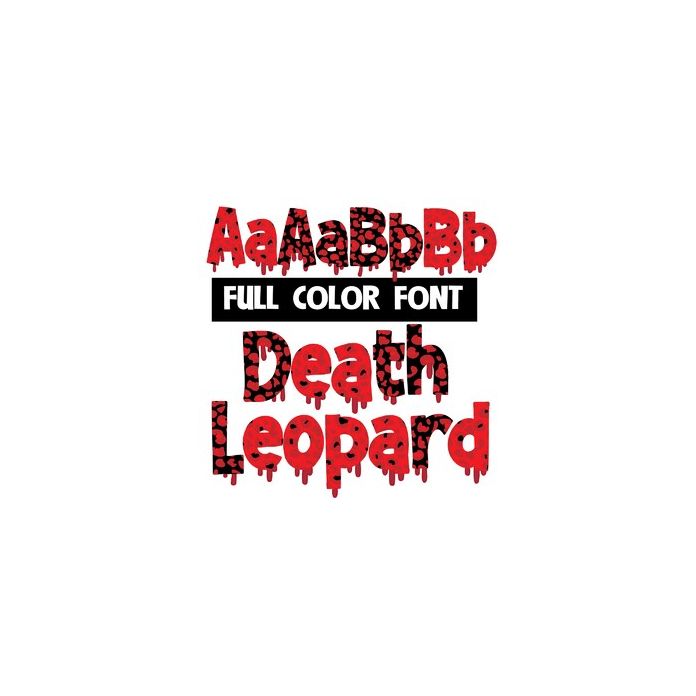
This full-color font features leopard print and bloody drips. There is a second version of each upper and lowercase letter in a different color available through Silhouette's glyph map.